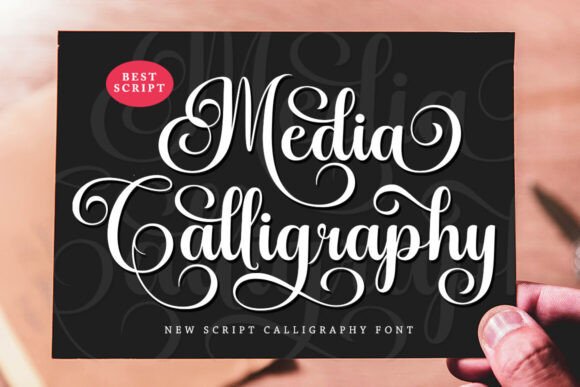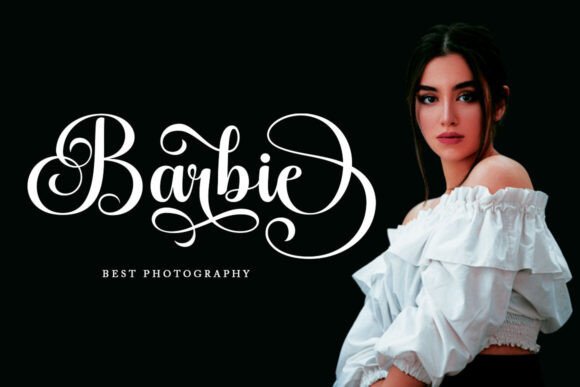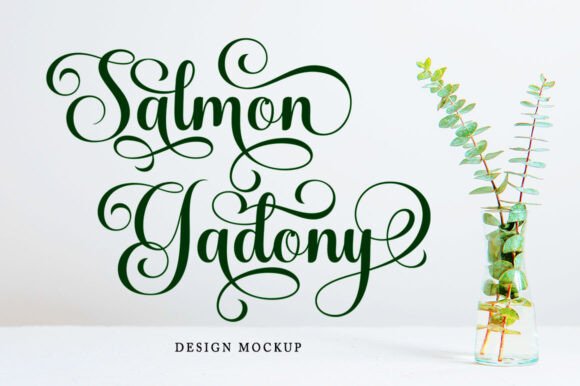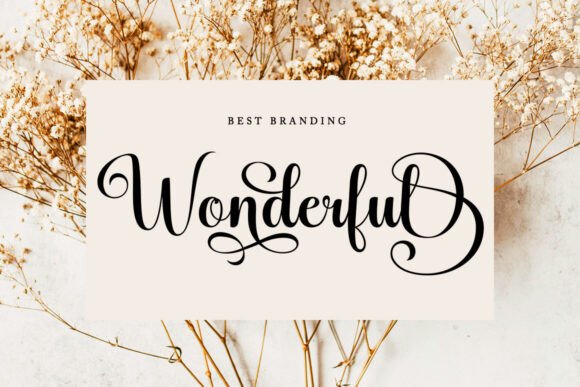
Media Calligraphy Font: Elegant Script for Wedding & Branding Design
About the Media Calligraphy Font
Explore the possibilities with Media Calligraphy Font, a font that offers both beauty and functionality. Media Calligraphy is a very elegant, beautiful and cute script font, elegant and unique handwritten font. Expertly designed to be a true favorite, this font has the potential to take your creative ideas to the highest level!
Its elegant, yet playful nature makes Media Calligraphy ideal for headlines, short text blocks on invitations or branding materials, and even stylish packaging designs. However, its decorative style isn’t suitable for body text or UI elements where readability is paramount. Extended use would hinder legibility.
This font pairs well with clean sans-serif fonts like Open Sans or Lato for a balanced contrast, or a more modern geometric sans-serif like Futura for a sophisticated feel. For a more traditional approach, a classic serif like Garamond or Times New Roman would complement its script character.
Media Calligraphy projects an overall air of sophisticated playfulness, best suited for brands or projects aiming for a balance of elegance and approachability.